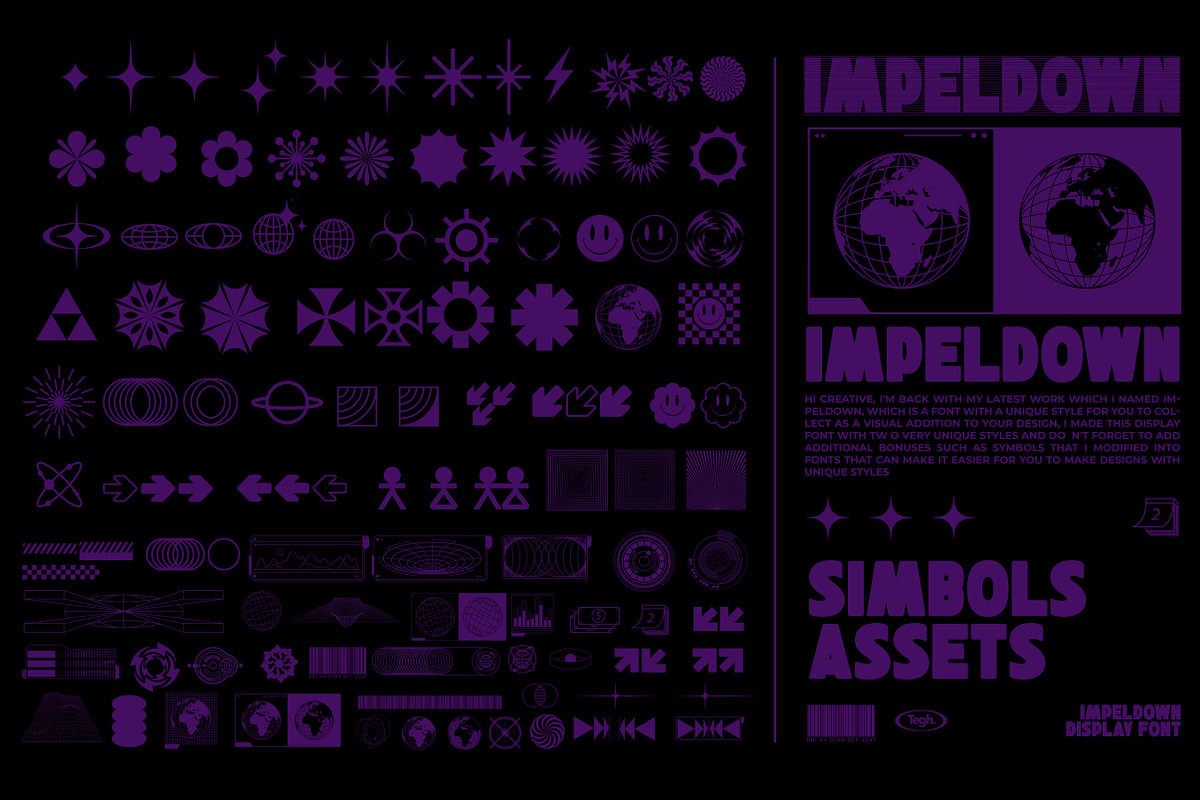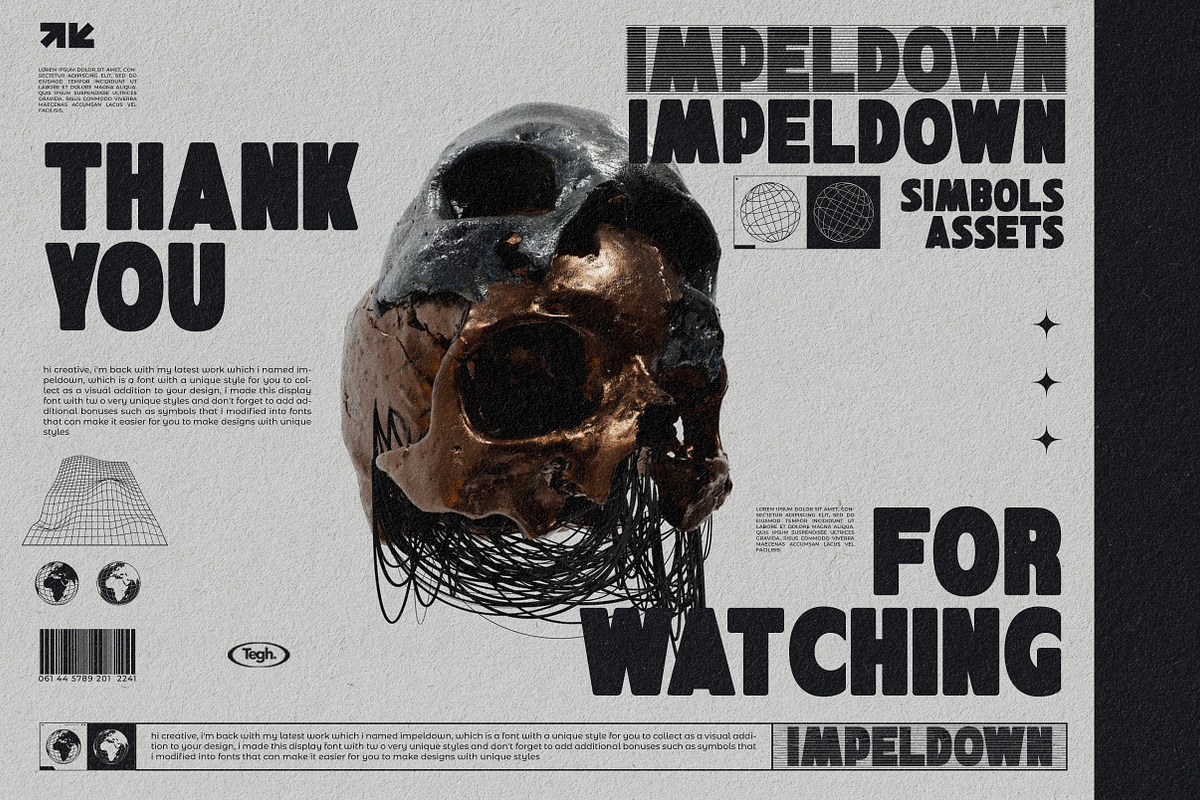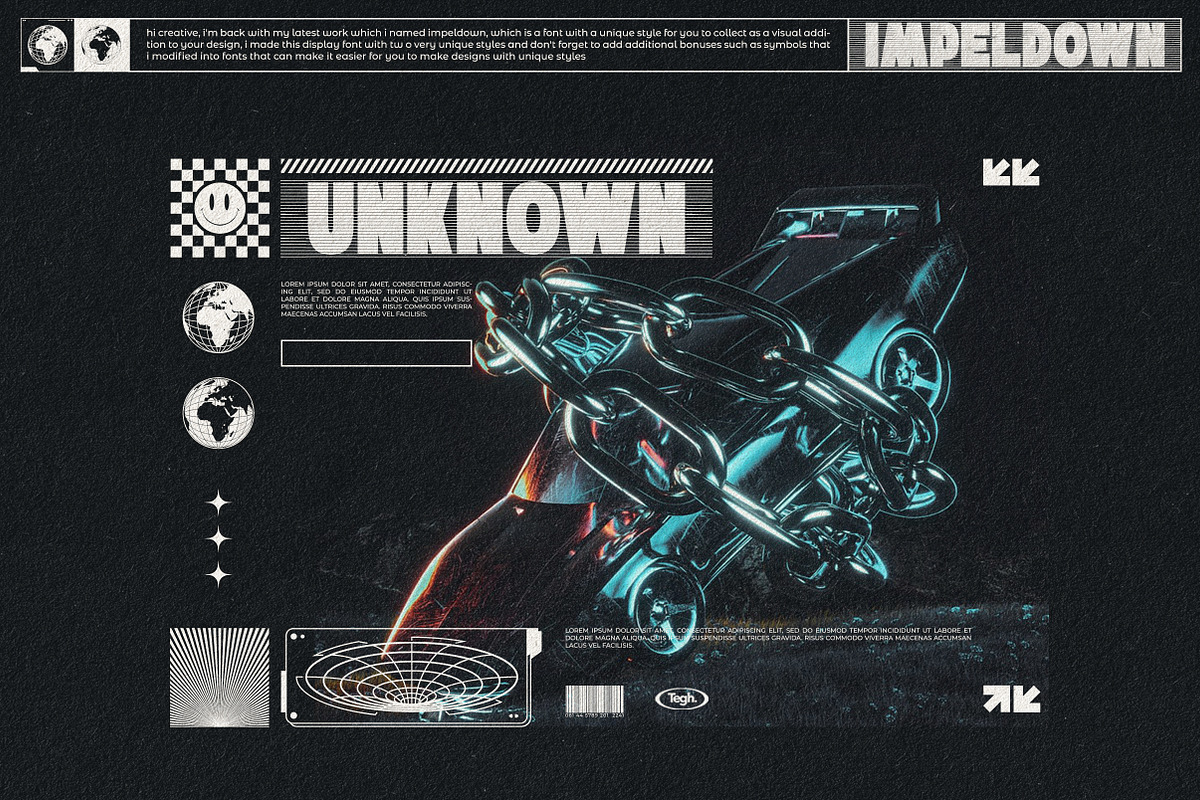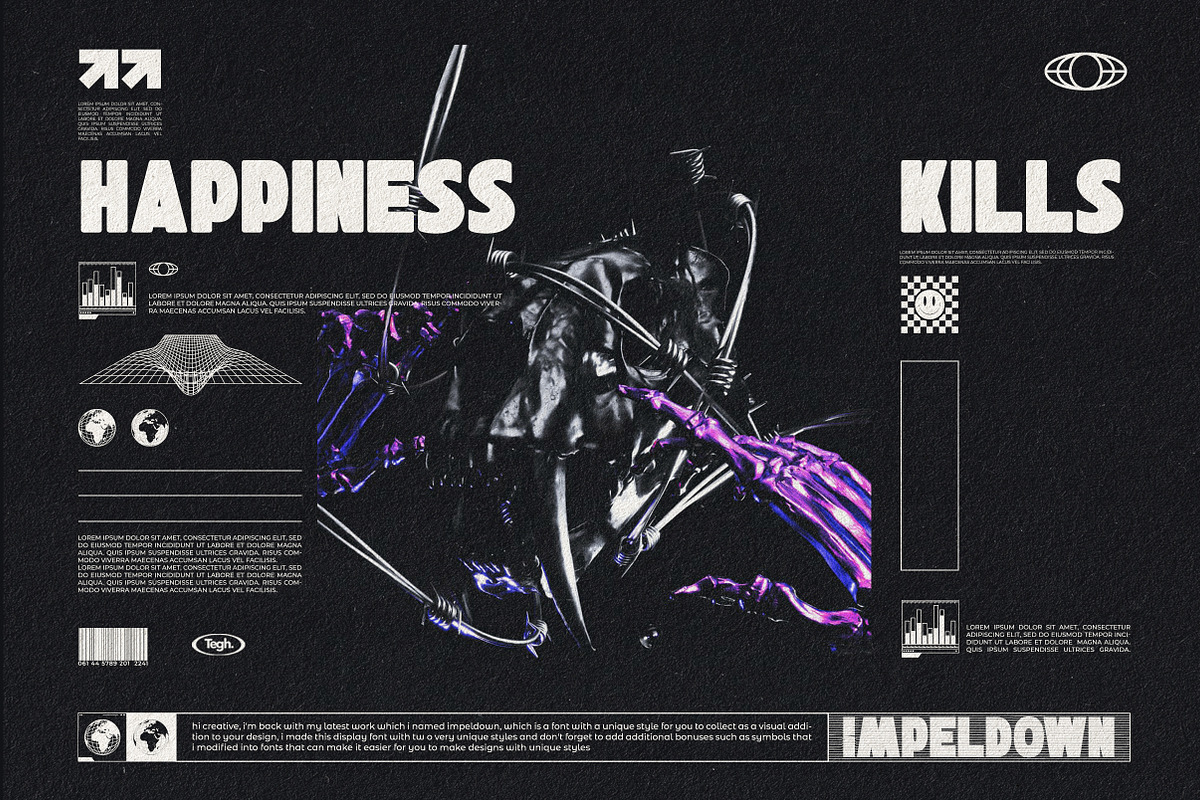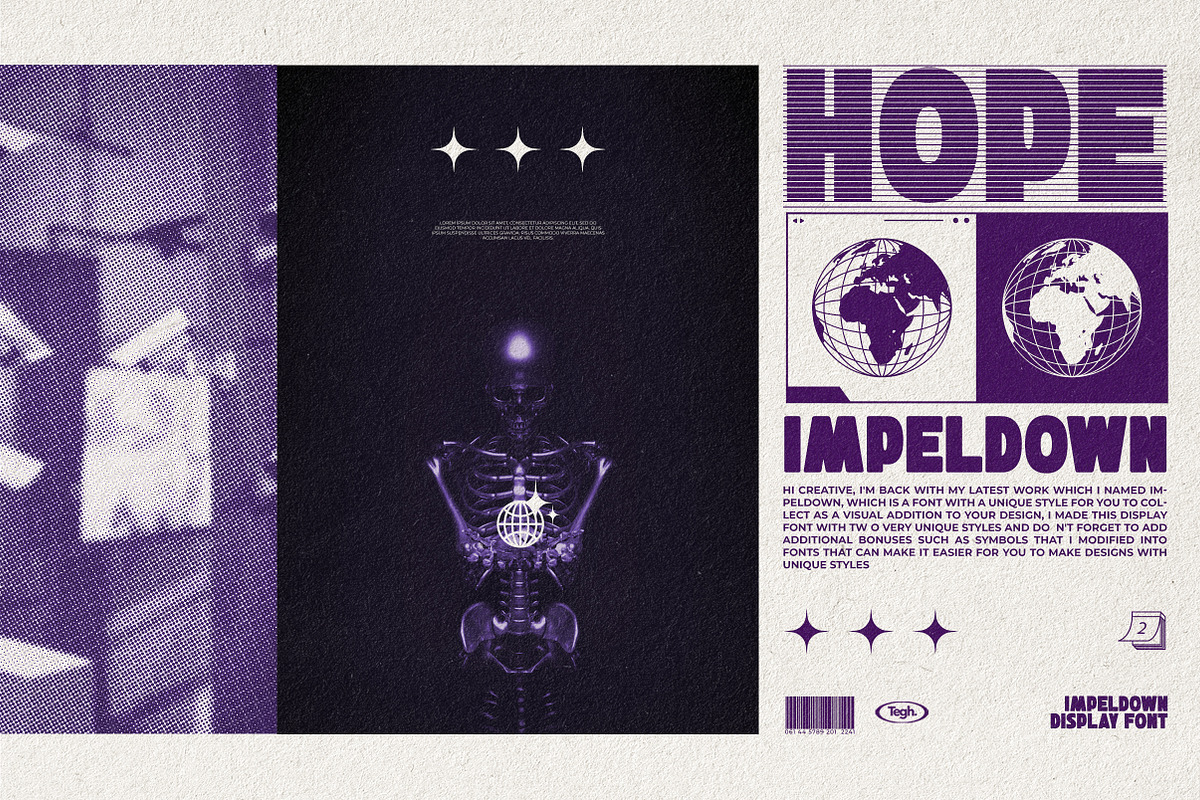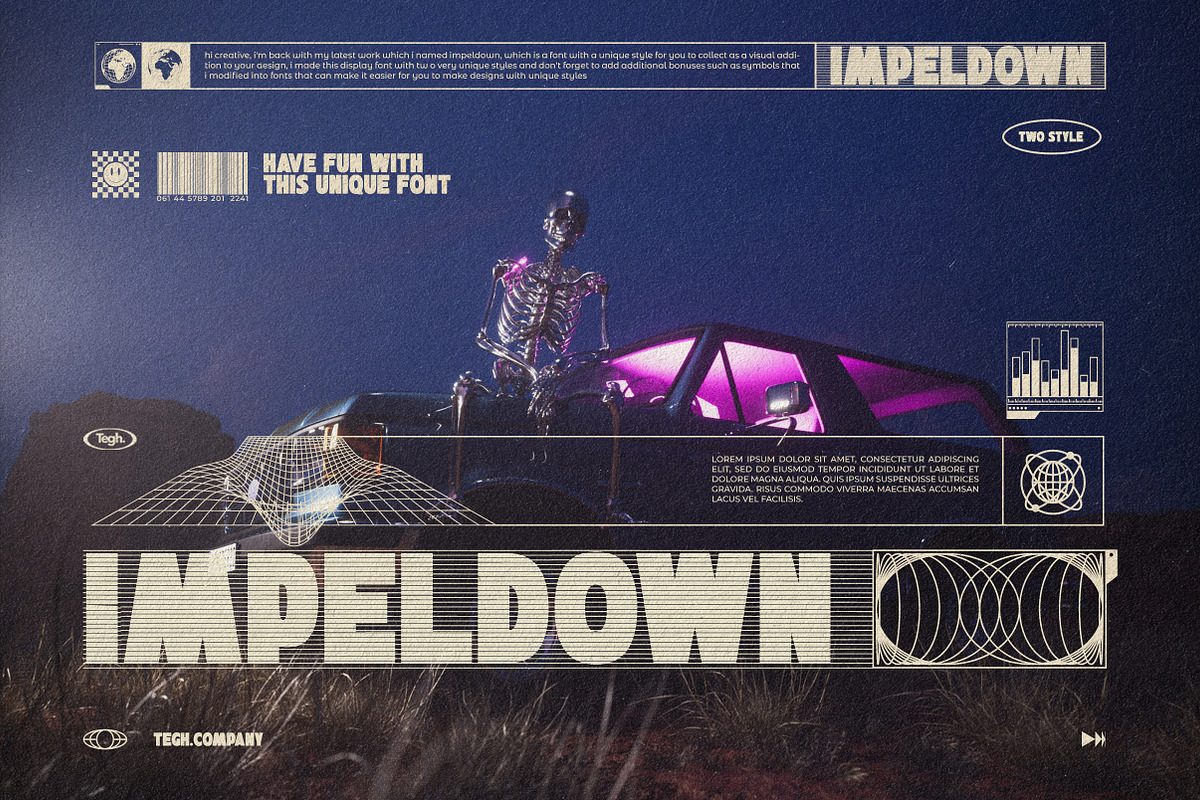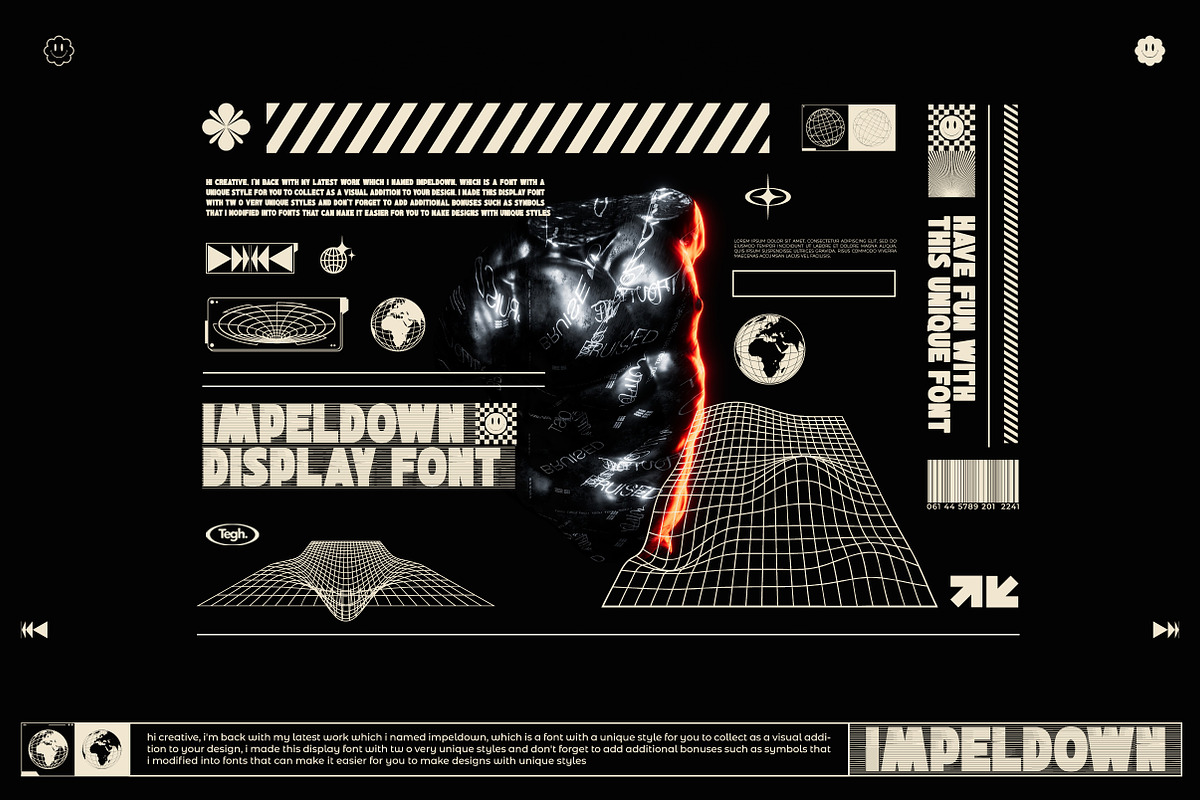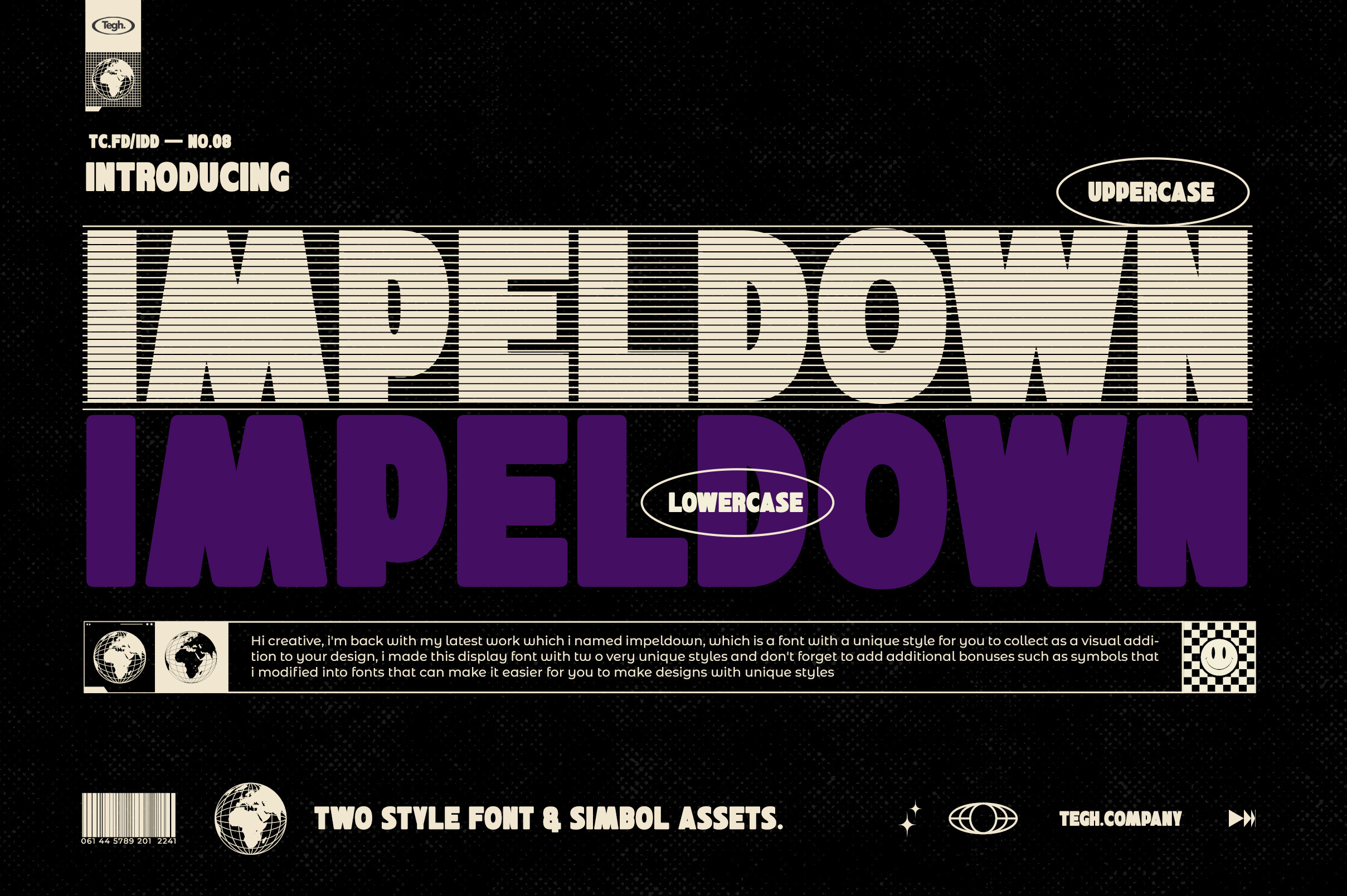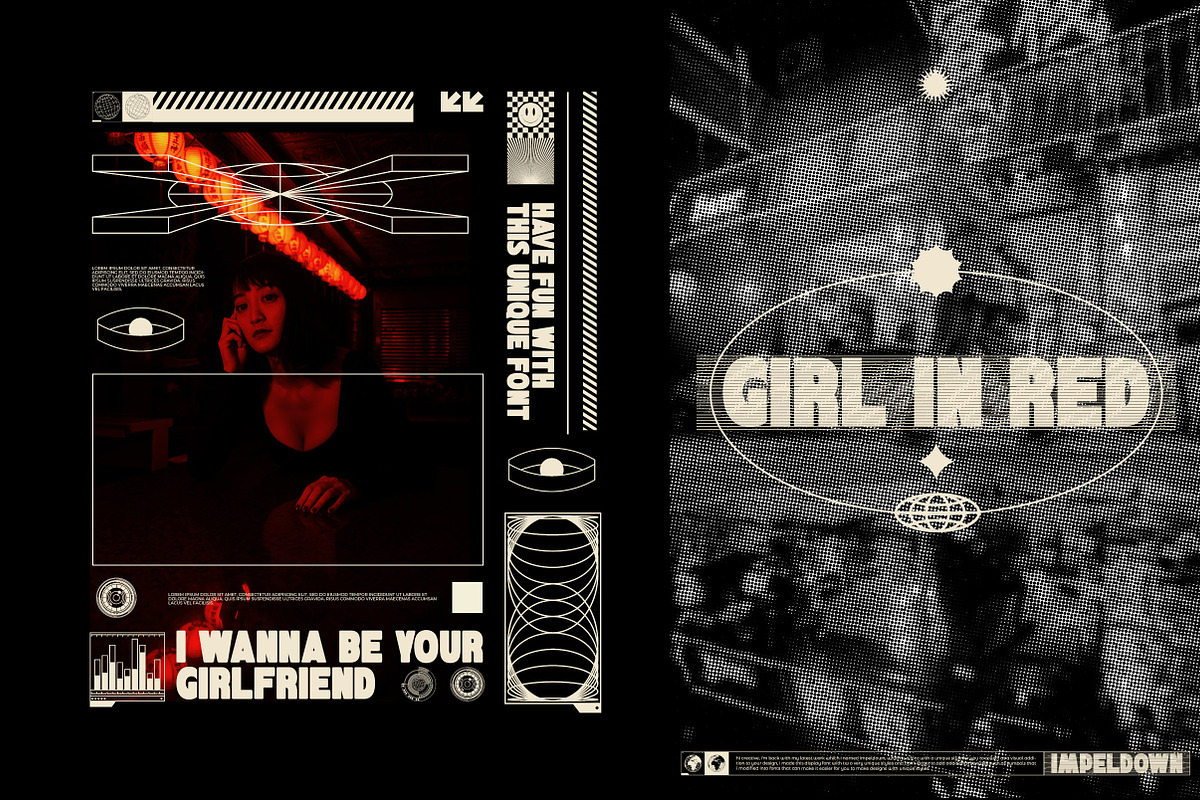
Impeldown Display Font & Symbols
Hi creative, i'm back with my latest work which i named impeldown, which is a font with a unique style for you to collect as a visual addition to your design, i made this display font with tw o very unique styles and don't forget to add additional bonuses such as symbols that i modified into fonts that can make it easier for you to make designs with unique styles